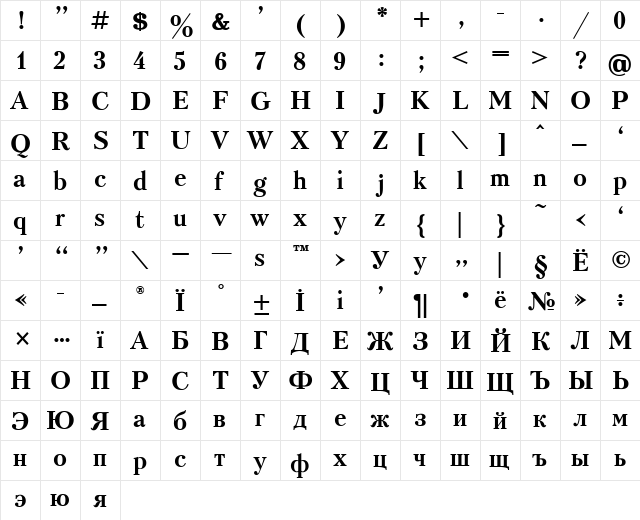
Kudrashov Bold
Design Context for Kudrashov Typeface
Kudrashov offers clean, dependable letterforms without strong stylistic allegiance, making it a practical choice for designers who need flexibility. The heavy weight commands attention and anchors typographic hierarchies.